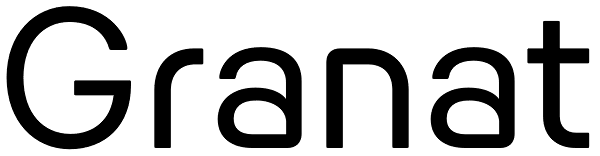
Granat
The idea for Granat goes back to my mysterious typeface Telepiu and later Teleneue. The straight horizontal bars in combination with the round joins create a very unique character. With Granat I wanted to push this style even further. Like in...